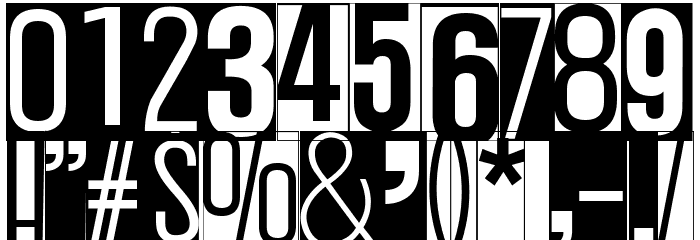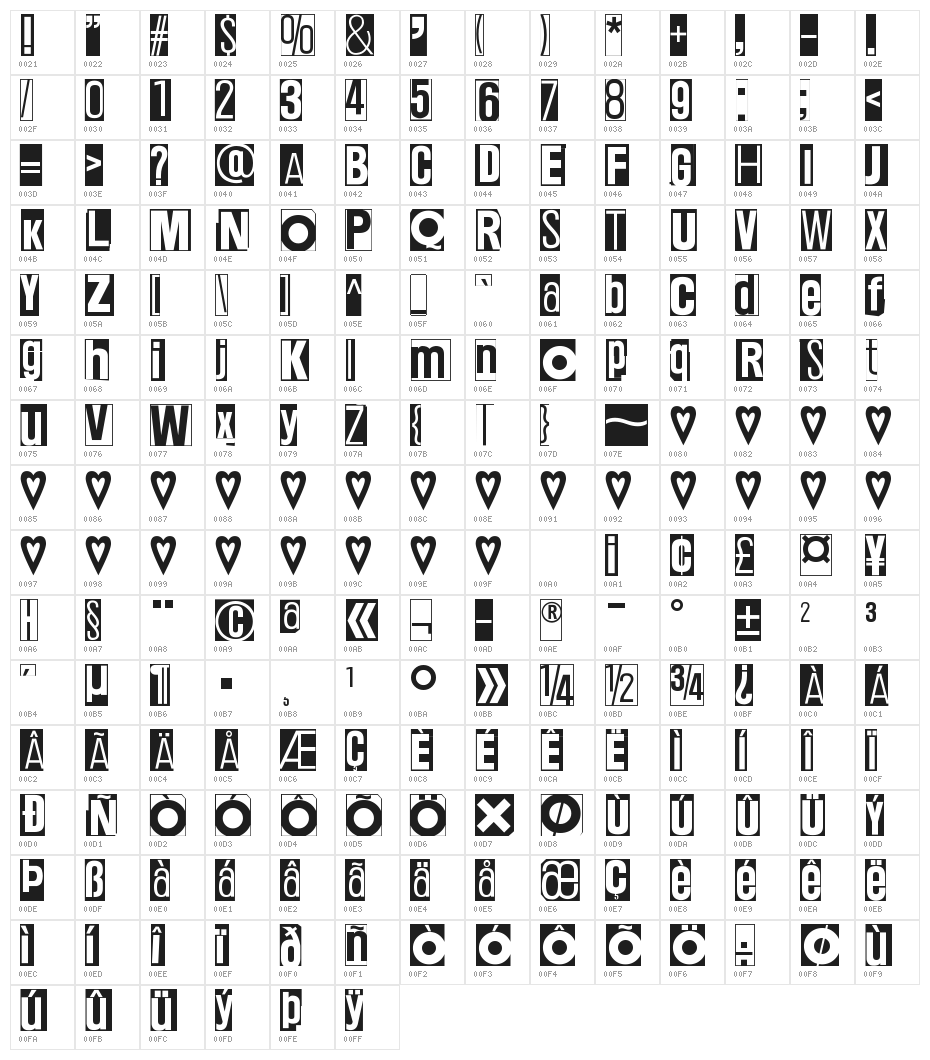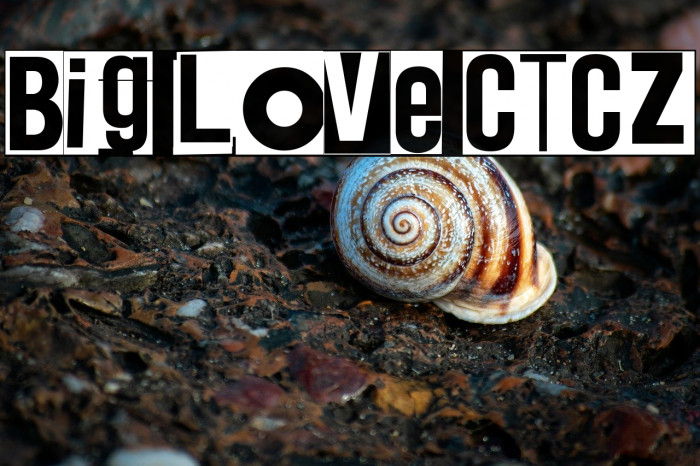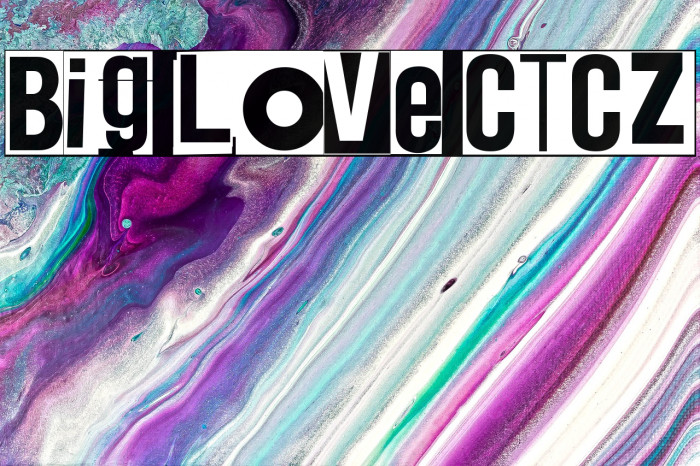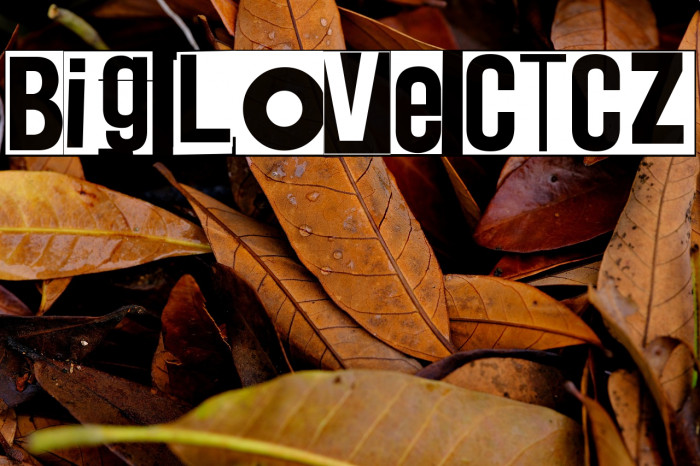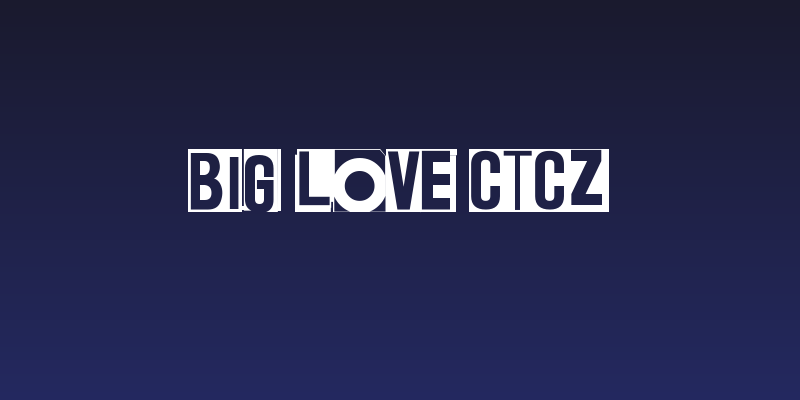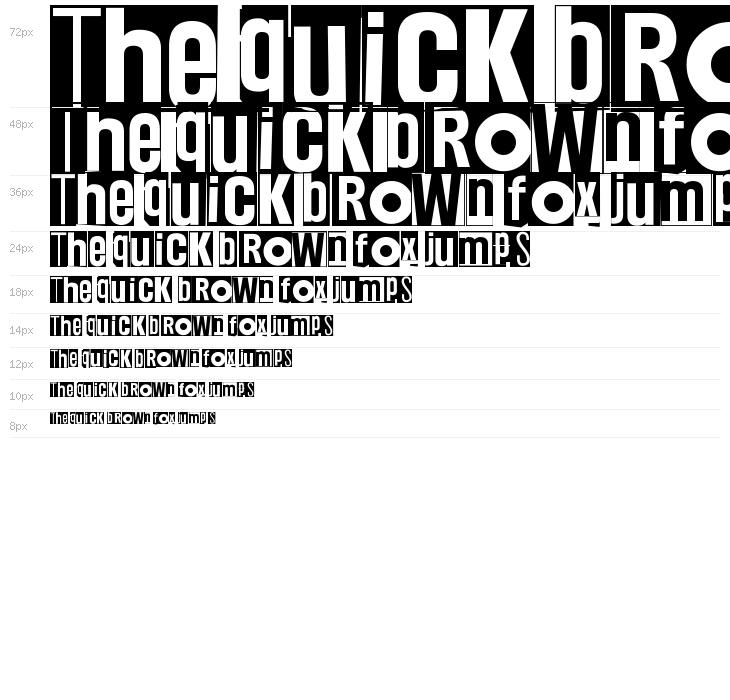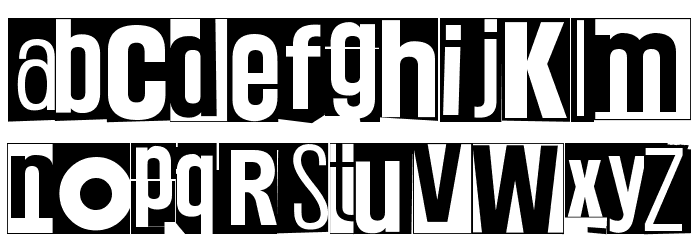
Big Love CTCZ Font
Big Love CTCZ Description
This font features a bold and striking design with high contrast between thick and thin strokes. The uppercase letters are particularly prominent, with some characters exhibiting unique geometric shapes that create a dynamic and eye-catching appearance. The lowercase letters maintain a consistent style, complementing the uppercase with a slightly more subdued presence. Numbers and special characters are designed to match the boldness of the alphabet, ensuring a cohesive look across all elements. The font's overall aesthetic is modern and impactful, making it suitable for projects that require a strong visual statement.